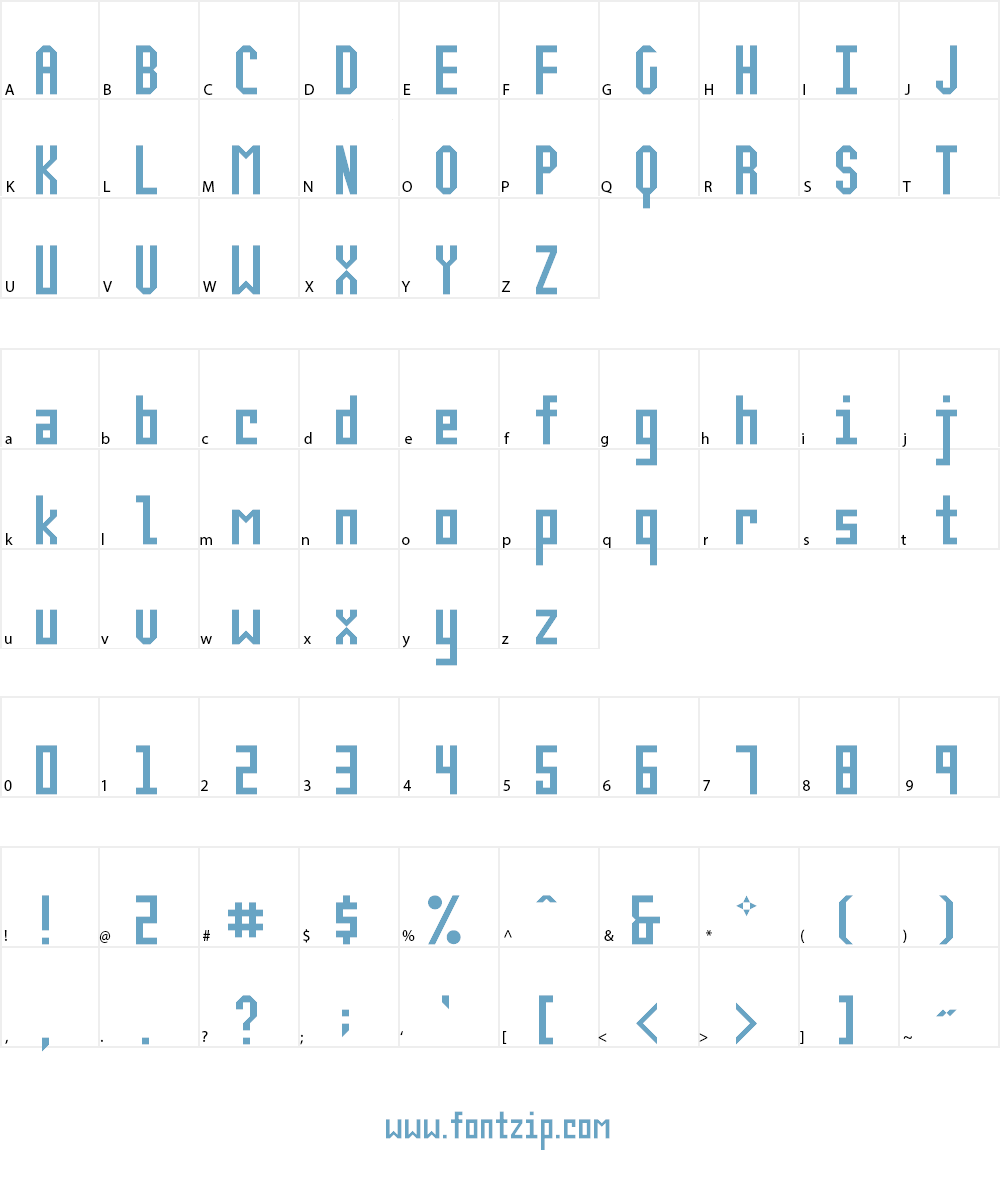
Yet another squarish tech-related typeface. Works best at larger sizes. Contains basic and accented Latin characters and Katakana.
v.1.1 will probably have Greek and Cyrillic characters.
CHANGES IN VERSION 1.0.1
-Fixed the size issue